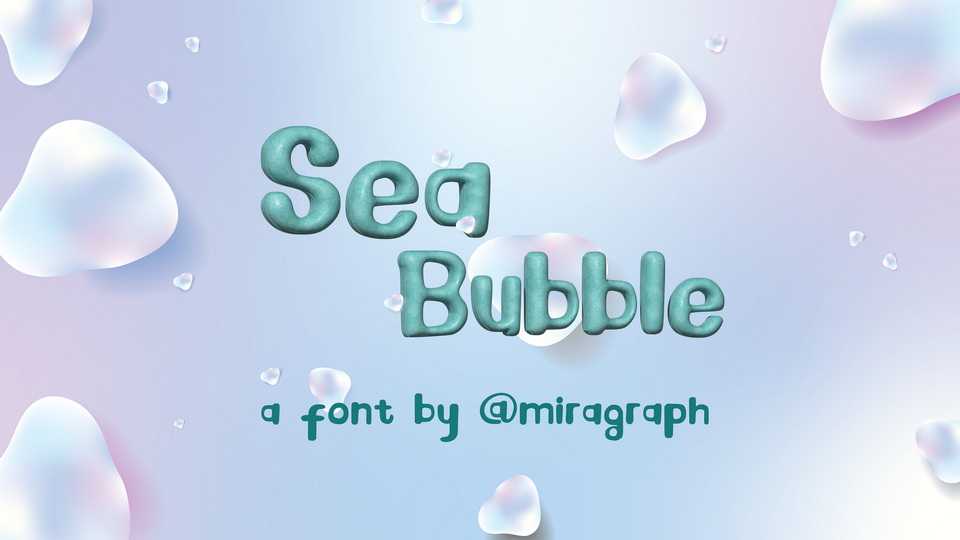
Sea Bubble Font › Fontesk – Fonte Grátis
Download Sea Bubble font, a delightful and versatile typeface that injects a sense of fun and whimsy into any design project. Sea Bubble font has unique blend of curvaceous letters and playful bubbles integrated into each character, this font is designed to capture attention and spark joy.